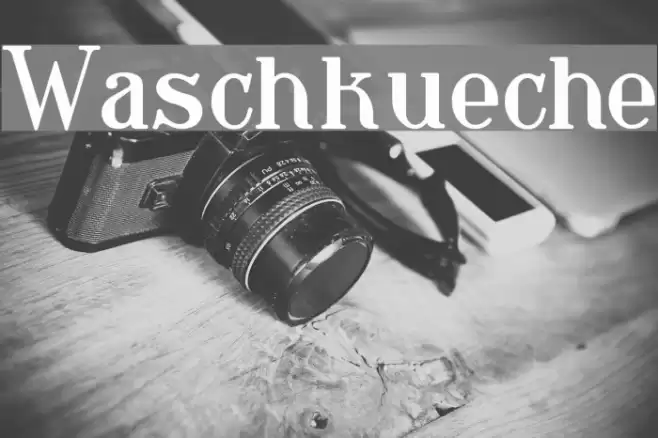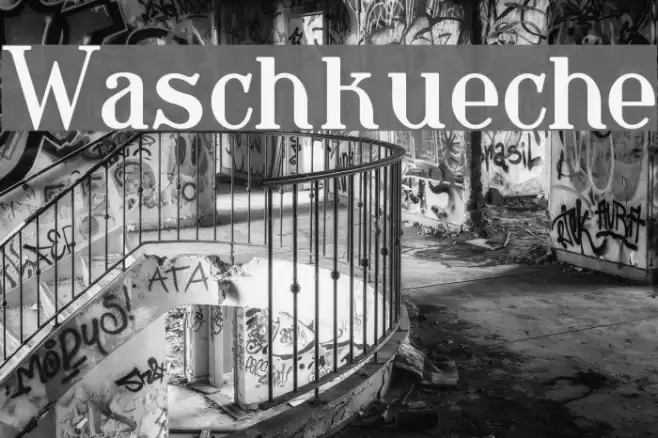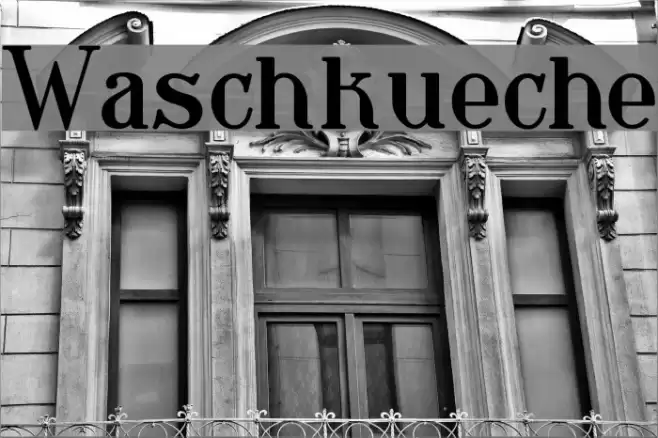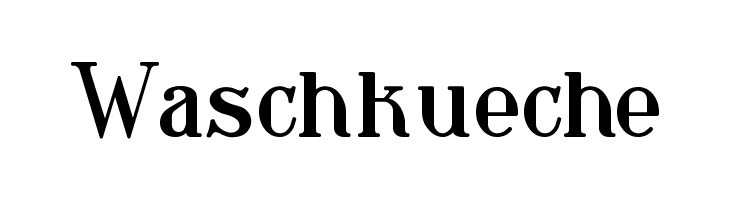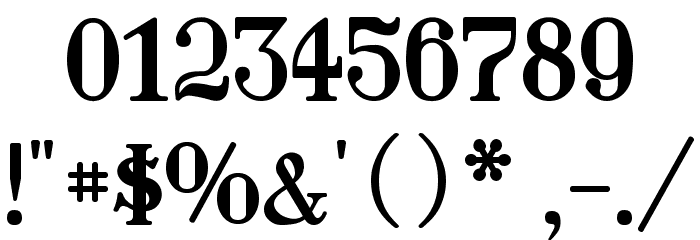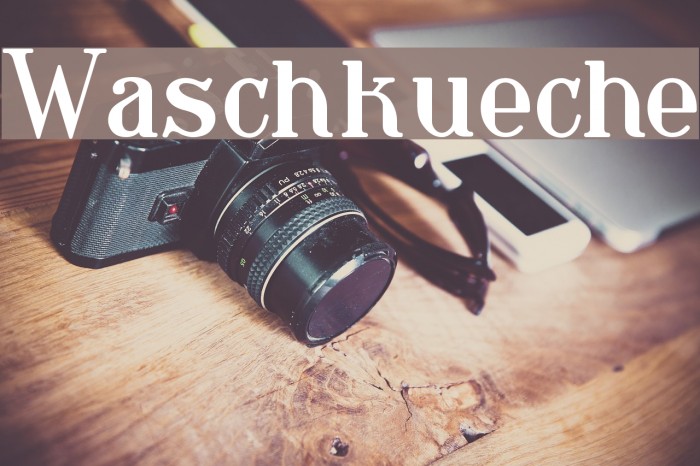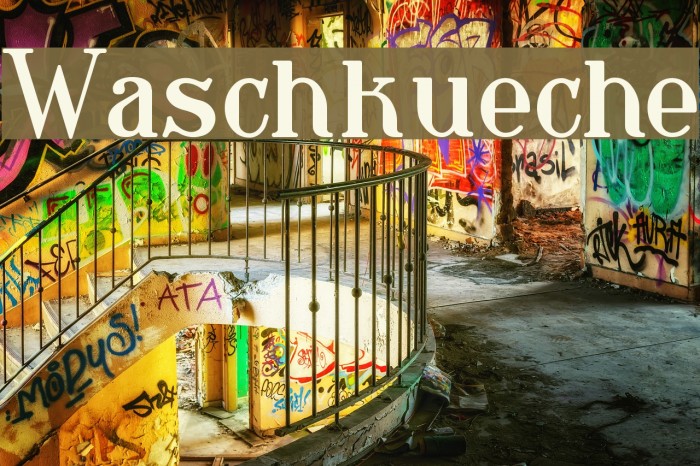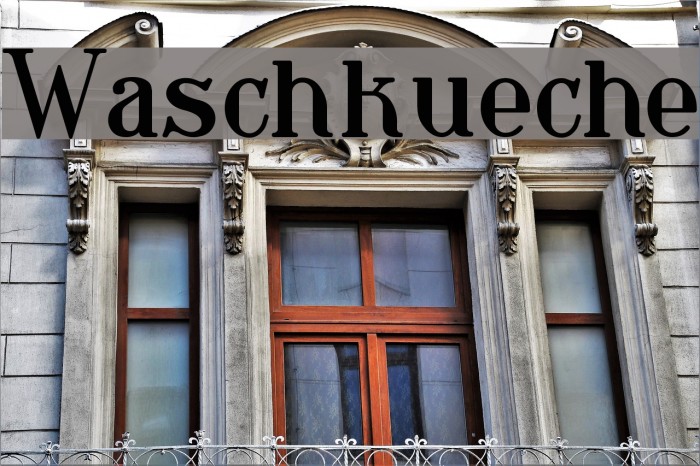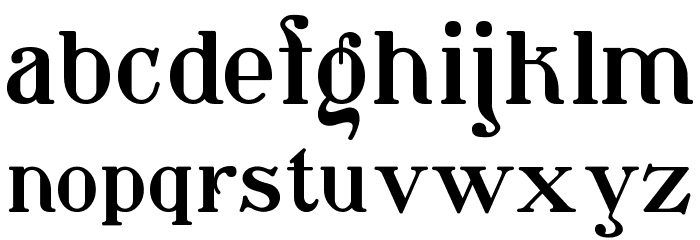
Waschkueche Font
Waschkueche Description
This font exhibits a classic serif style with a distinct vintage flair. The uppercase letters are bold and prominent, featuring sharp serifs that give them a strong, authoritative presence. The lowercase letters maintain a consistent style, with some unique flourishes, particularly in letters like 'g' and 'f', which add character and elegance. The numerals are well-balanced and clear, making them suitable for both display and text purposes. Special characters are designed with the same attention to detail, ensuring a cohesive look across all glyphs. The overall appearance is both traditional and stylish, making it versatile for various design needs.
A vintage serif font with bold, elegant characters and unique flourishes from Serif fonts.
- Overall Style: Vintage